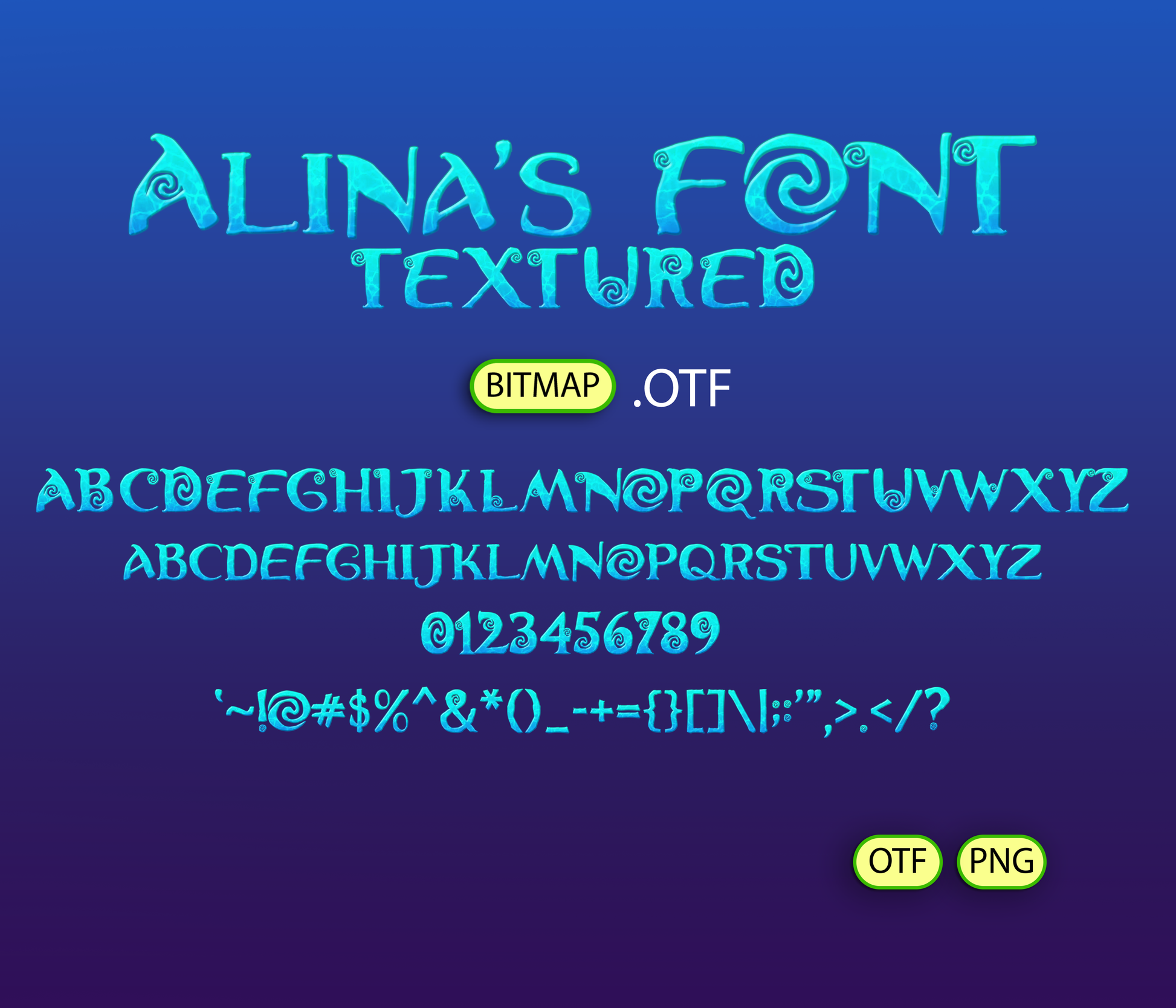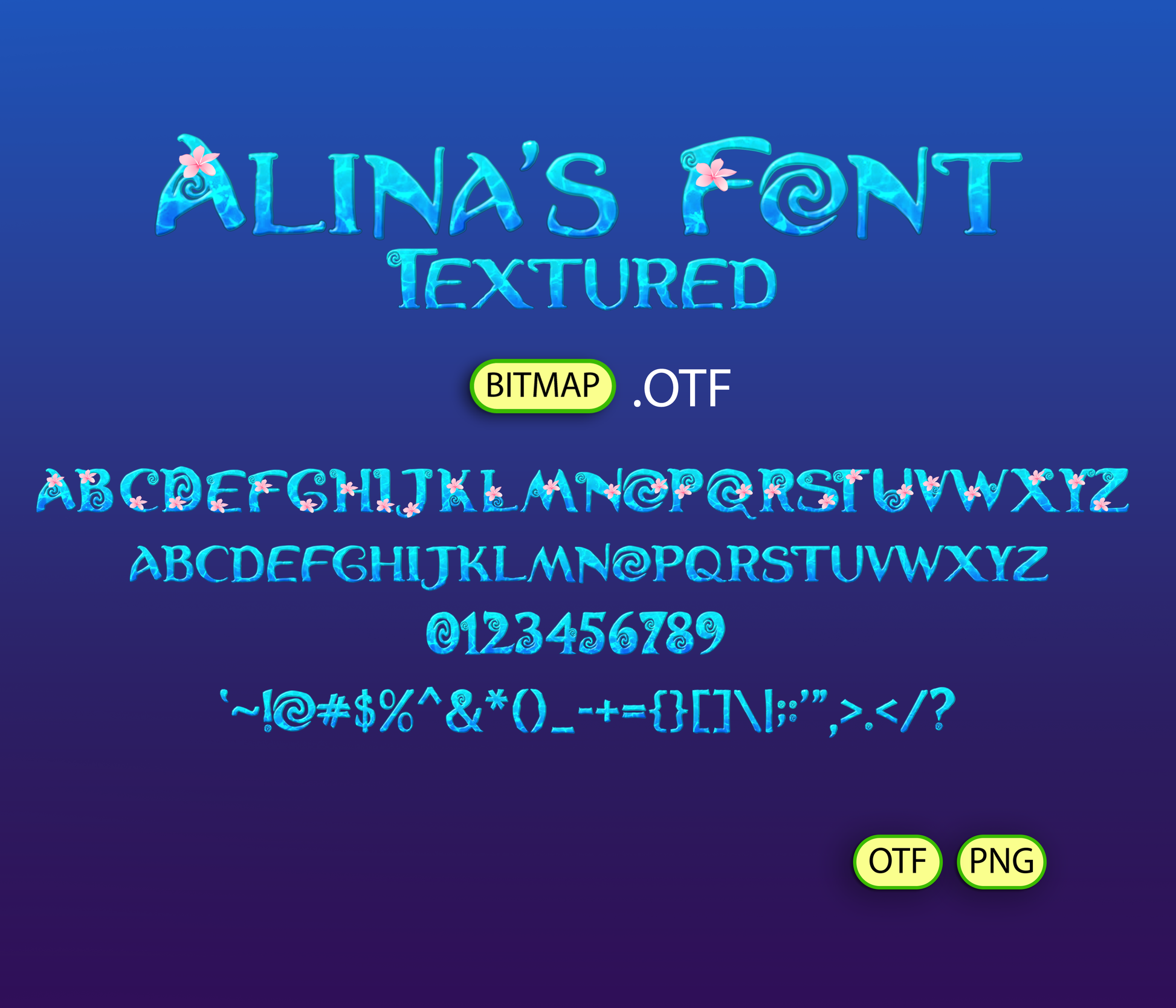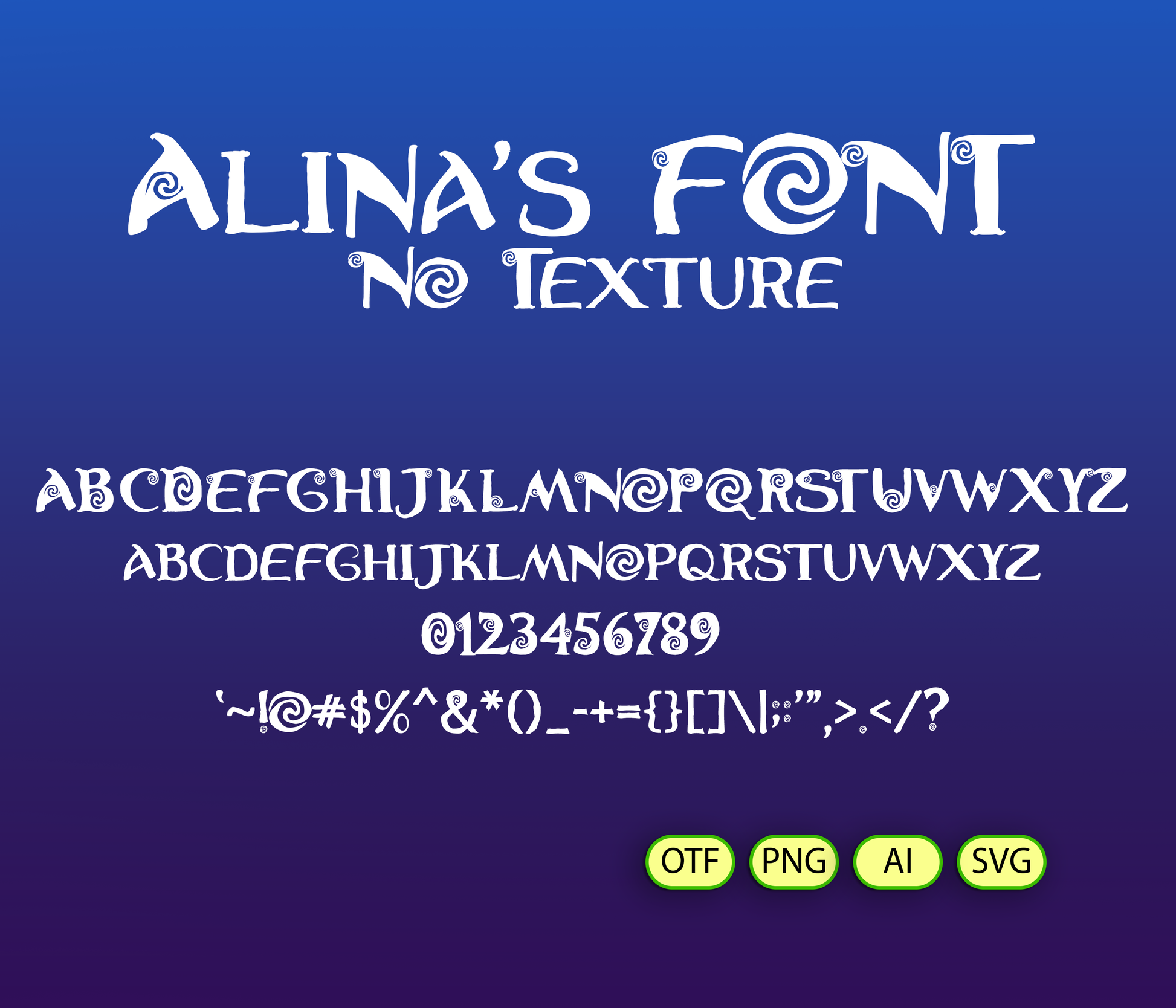
Pacific Explorer Font Textured
Navigate the Seas with the Pacific Explorer Font
Navigate the vast and mystical world of Pacific Explorer with our specially designed font, inspired by the beloved animated film known for its captivating storytelling, rich Polynesian culture, and stunning oceanic landscapes. This font embodies the essence of Moana's adventurous spirit, her deep connection with the ocean, and the cultural heritage of her people. Each character in the font is infused with the fluidity, boldness, and natural beauty of the Pacific Islands, making it perfect for projects that aim to evoke the magic and charm of Moana's journey.
What Font is Pacific Explorer Font?
Imagine a typeface that encapsulates the fluidity, organic shapes, and cultural richness of the Pacific Islands. Our Pacific Explorer font is designed to mirror the aesthetic elements seen in the movie, with a focus on wave-like curves, tribal patterns, and a sense of adventure. It includes an extensive character set, featuring alphabets, numbers, and special symbols, providing a comprehensive tool for creating designs that resonate with the themes of exploration, nature, and Polynesian culture.
Feature Highlights and Bonuses:
- Textured and FREE Non-Textured Variants: Each font is available in both a style inspired by natural island textures and a clean, non-textured version for diverse design needs.
- Comprehensive Character Set: Offers a wide range of characters for complete design versatility.
The Pacific Explorer-inspired font is more than just a typeface; it's an invitation to the enchanting world of Moana.